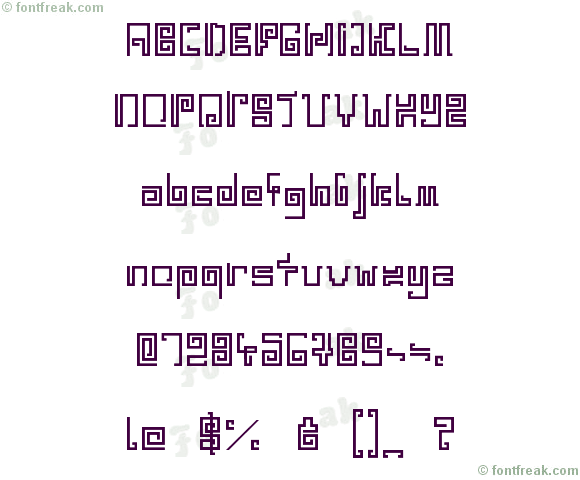
IndiaSnakePixelLabyrinthGam-d
About IndiaSnakePixelLabyrinthGam-d
IndiaSnakePixelLabyrinthGam-d, designed by Manuel Viergutz, is a unique decorative font that draws inspiration from pixel art and labyrinthine designs. This font features a distinctive, blocky style characterized by its geometric forms and sharp angles. The stroke weight is consistent, giving it a uniform appearance that enhances legibility while retaining a playful and engaging aesthetic. The spacing between characters is well-balanced, allowing for easy reading, while the decorative elements evoke a sense of adventure and exploration.
This font is particularly suitable for a variety of creative projects. It can be effectively used in video game design, especially for retro-style games or applications that seek to capture a nostalgic feel. Additionally, it works well for promotional materials related to gaming events, such as posters or flyers. The IndiaSnakePixelLabyrinthGam-d font can also enhance the visual appeal of merchandise, such as T-shirts or stickers, making it an excellent choice for branding in the gaming industry. Furthermore, graphic designers looking to create eye-catching social media graphics will find this font to be an engaging option.
Target audiences for this font include graphic designers, small business owners in the gaming sector, and content creators aiming to attract attention with unique typography. Its versatility allows it to be utilized across various platforms, ensuring that it meets the needs of a wide range of users.
What sets the IndiaSnakePixelLabyrinthGam-d font apart is its ability to blend nostalgia with modern design sensibilities. Its unique character shapes and playful aesthetic make it a standout choice for anyone looking to make a bold statement. For those interested in incorporating this innovative typeface into their projects, the IndiaSnakePixelLabyrinthGam-d font free download is readily available, providing an opportunity to explore its creative potential.